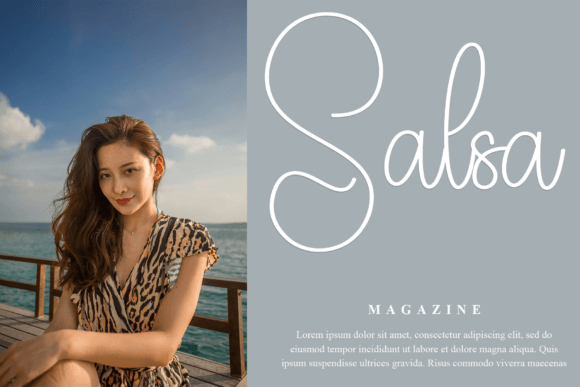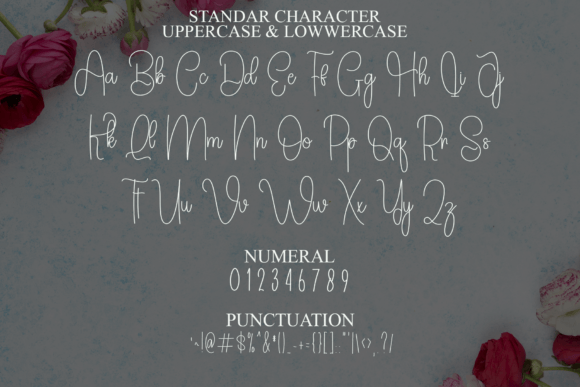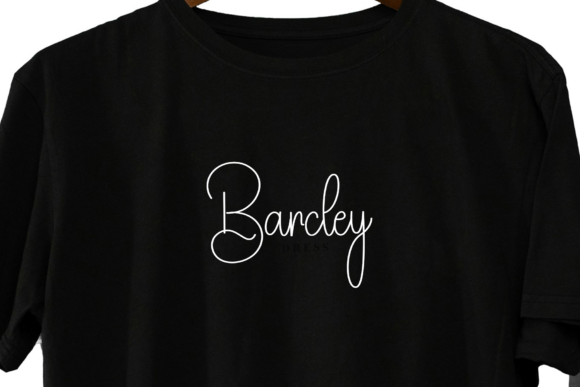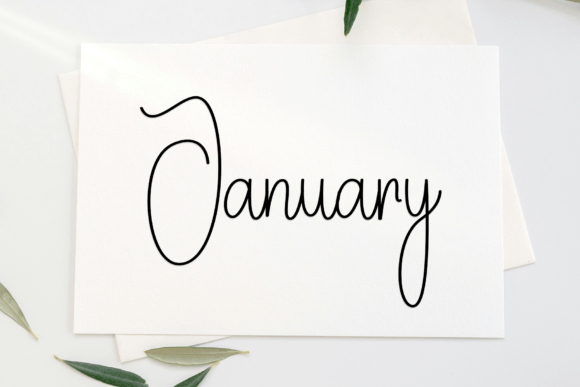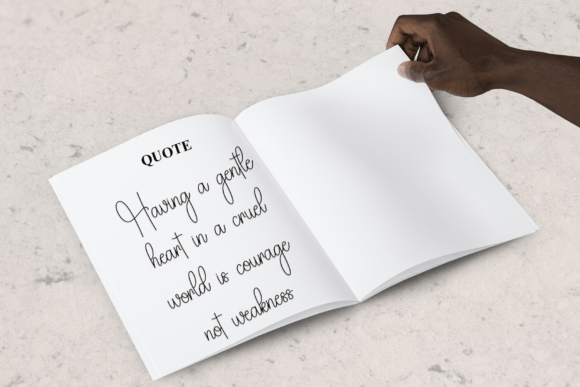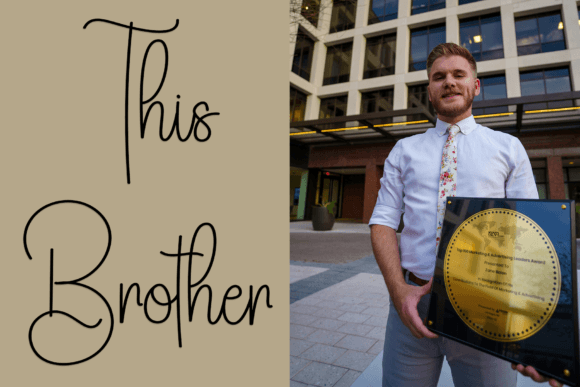
The Elegance of Brother Font: Elevating Your Designs
Have you ever stared at a blank canvas, waiting for inspiration to strike? It’s a feeling we’ve all been through at some point in our creative journey. As designers, we’re constantly seeking that perfect font to bring our ideas to life. That’s where the Brother Font comes in – a delicate, elegant, and timeless font that will make your designs shine.
This versatile font is designed to complement a wide range of styles, from modern to traditional. With its beautiful and well-balanced characters, the Brother Font is the perfect addition to any design project. As a PUA-coded font, you’ll have easy access to its amazing glyphs and ligatures, allowing you to unleash your creativity without any limitations.
Whether you’re a seasoned designer or just starting out, the Brother Font is an invaluable tool to have in your arsenal. Its versatility and elegance make it a valuable asset for any design project, and we can’t wait to see how you’ll use it to elevate your work!
Key Features of Brother Font
- Font Style: Brother Font is a unique, handwritten font that resembles handwritten text. It is ideal for creating a personal and friendly tone in designs.
- Unique Characteristics: Brother Font features a distinctive, handwritten style with subtle variations in letterforms, giving it a natural and organic feel.
Designer Review: Brother Font
Brother Font is a typeface that caught my attention due to its unique blend of modern and vintage elements. Here are my thoughts on what works well and what doesn’t:
- The Brother Font has a sophisticated feel, making it perfect for use in high-end branding and publishing.
- The font’s high x-height and large terminals make it highly legible, even at small sizes.
- The font’s unique combination of modern and vintage elements adds a touch of personality to any design.
- The font includes a wide range of weights and styles, making it highly versatile and customizable.
- The font’s vintage elements can sometimes make it feel overly ornate, which may not be suitable for all designs.
- The font’s high x-height can make it feel somewhat difficult to read at very small sizes.
- The font’s range of weights and styles can be overwhelming, making it difficult to choose the right one for a specific project.
Overall, I think Brother Font is a solid choice for designers looking for a unique and sophisticated typeface. While it has some limitations, its strengths far outweigh its weaknesses, making it a great addition to any design arsenal.
To get the most out of Brother Font, use it for:
- Headlines and titles to add a touch of elegance and sophistication.
- Body text to create a clean and modern look.
- Emphasizing important information or calls-to-action.
Remember to adjust the font size and style to fit your design and ensure readability.